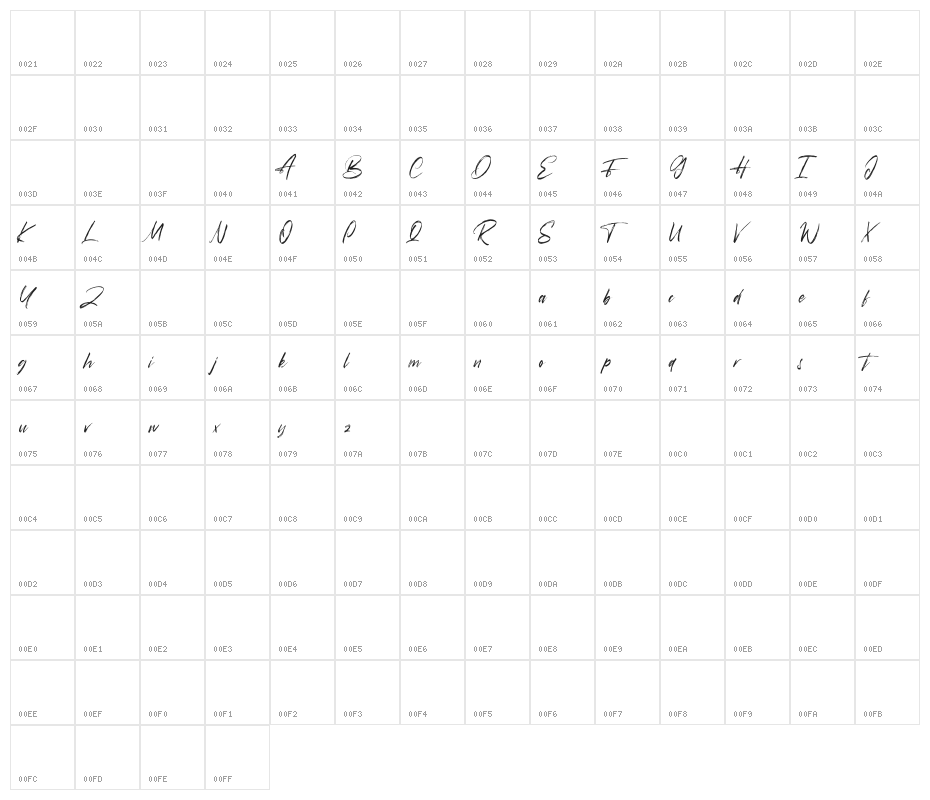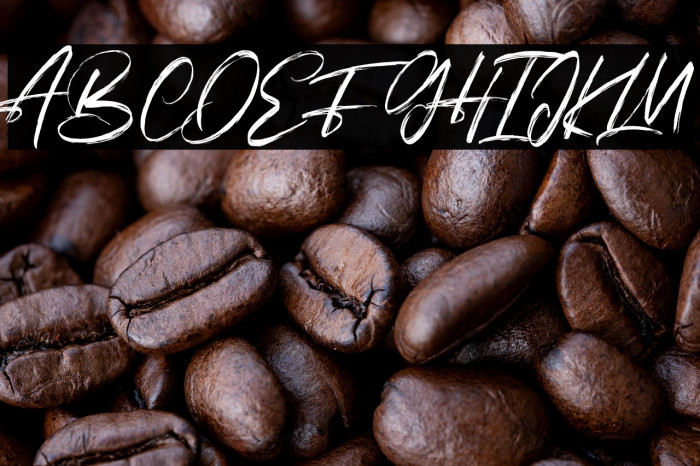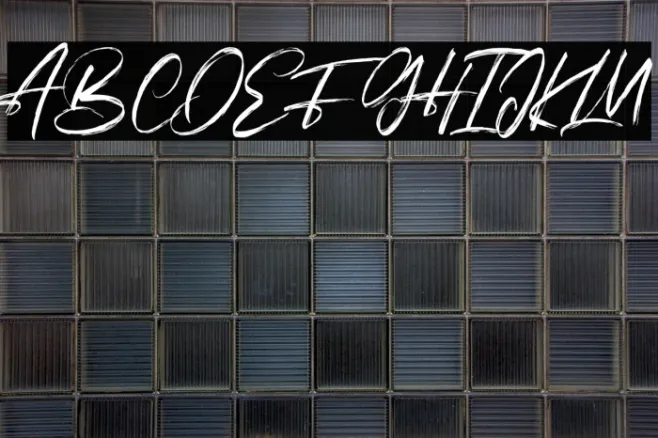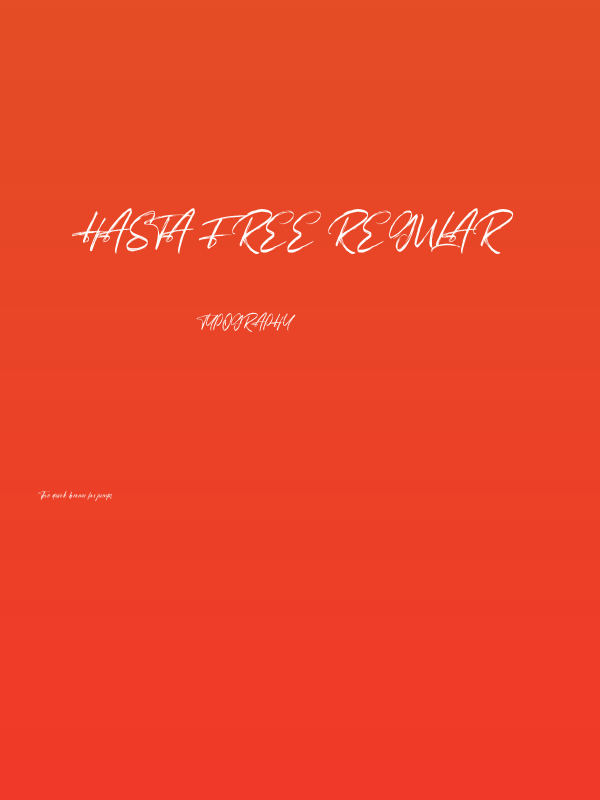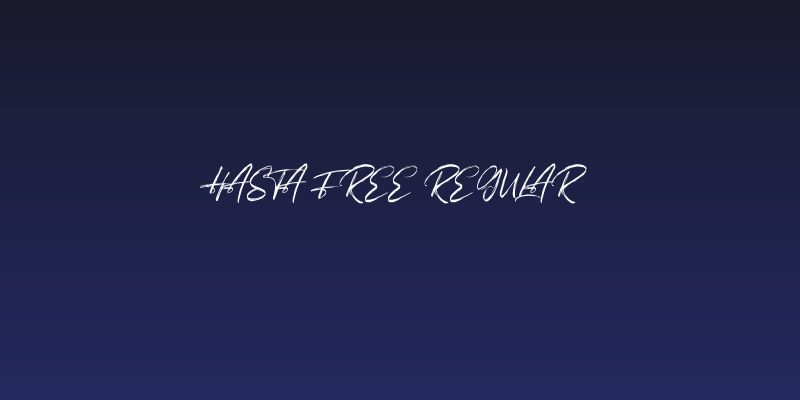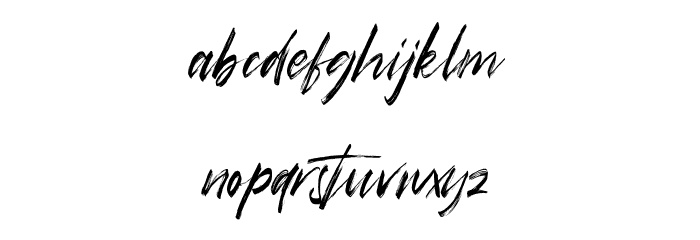
Hasta Free Regular Font
Hasta Free Regular Description
This font exudes a dynamic and energetic style, characterized by its bold, sweeping strokes and fluid, cursive design. The uppercase letters are particularly striking, with exaggerated loops and curves that give a sense of movement and flair. The lowercase letters maintain this fluidity, offering a harmonious balance between elegance and readability. The overall appearance is reminiscent of a modern calligraphy style, making it suitable for projects that require a touch of sophistication and artistic expression. The font's unique character is further enhanced by its high contrast in stroke thickness, which adds depth and visual interest.